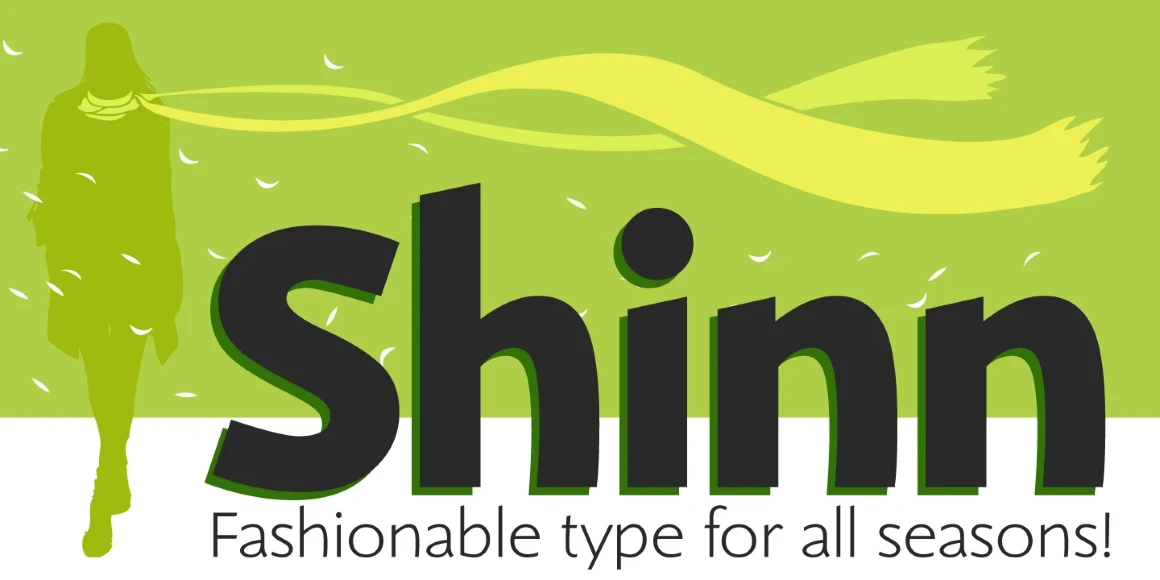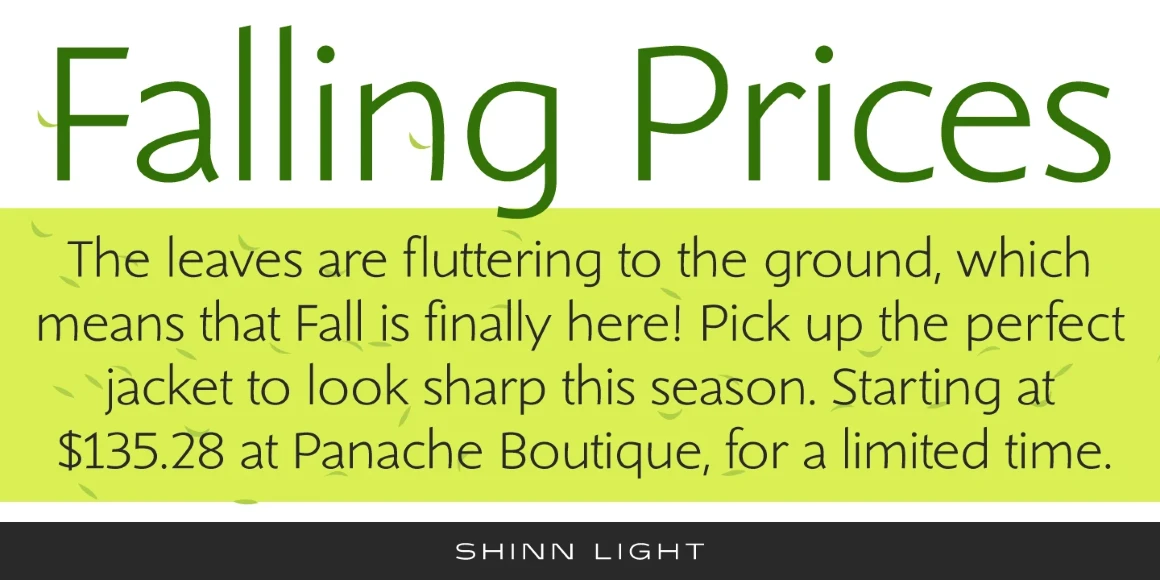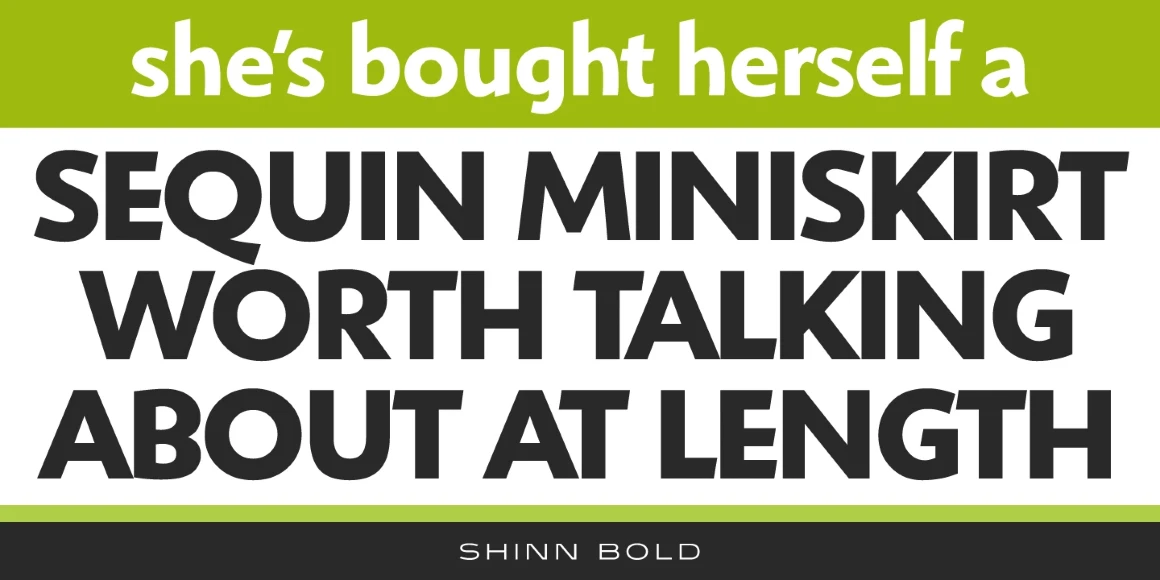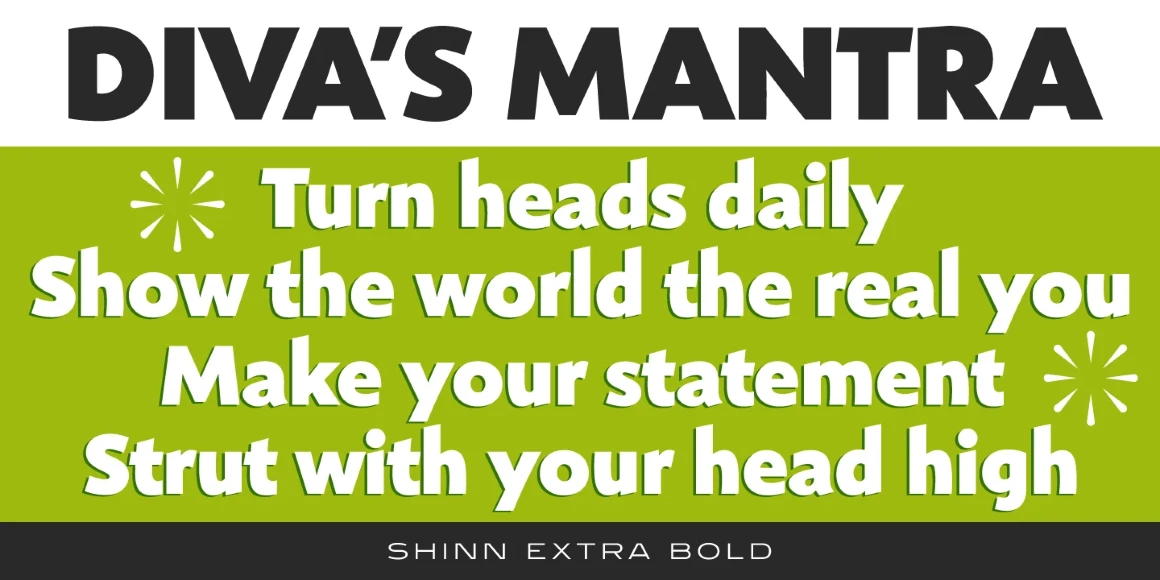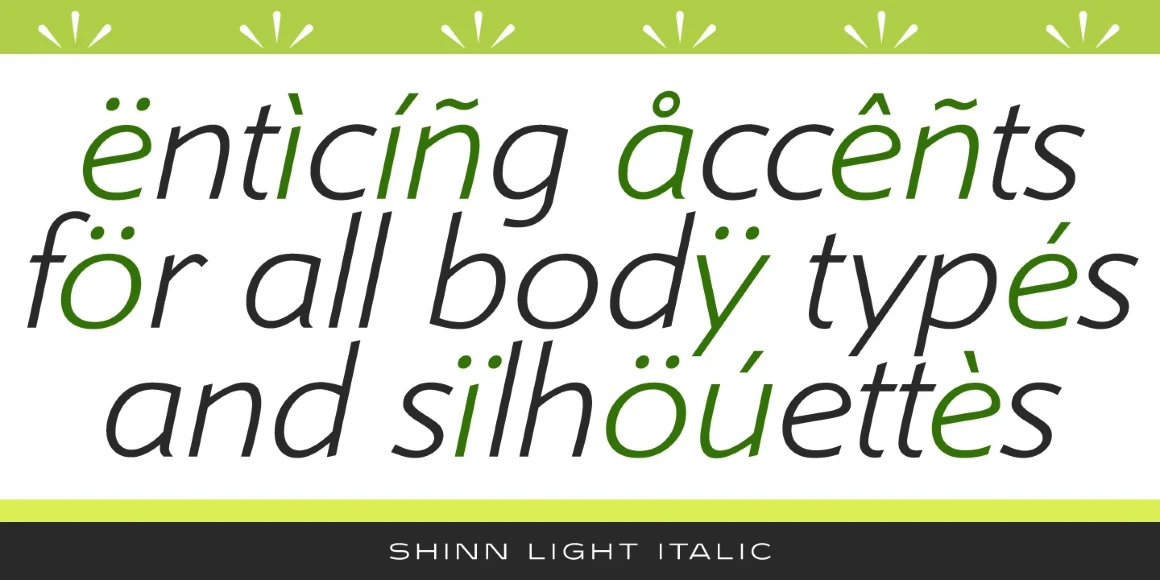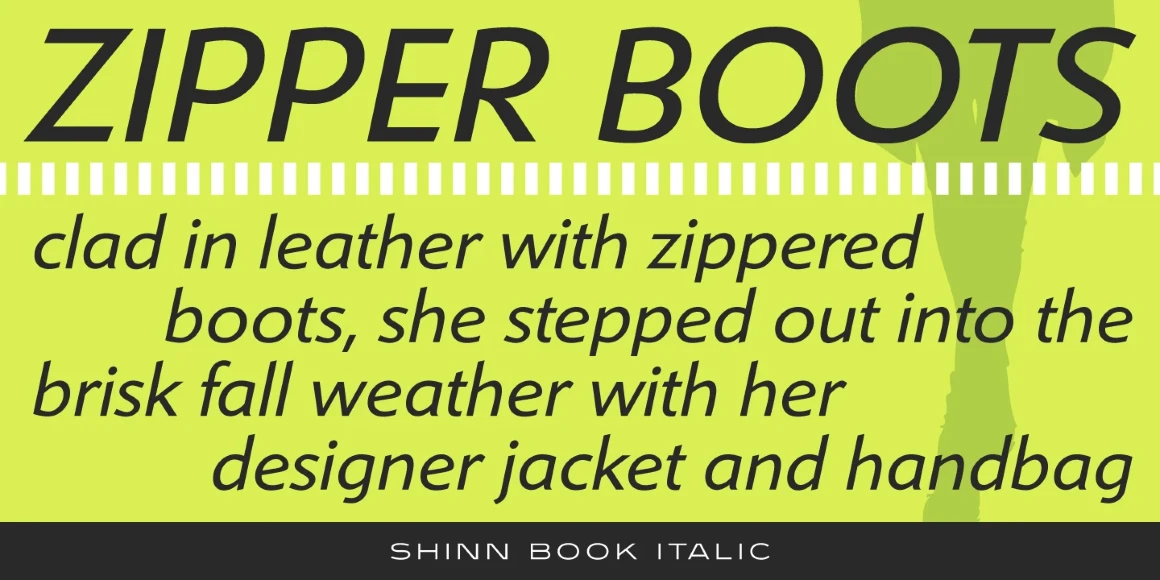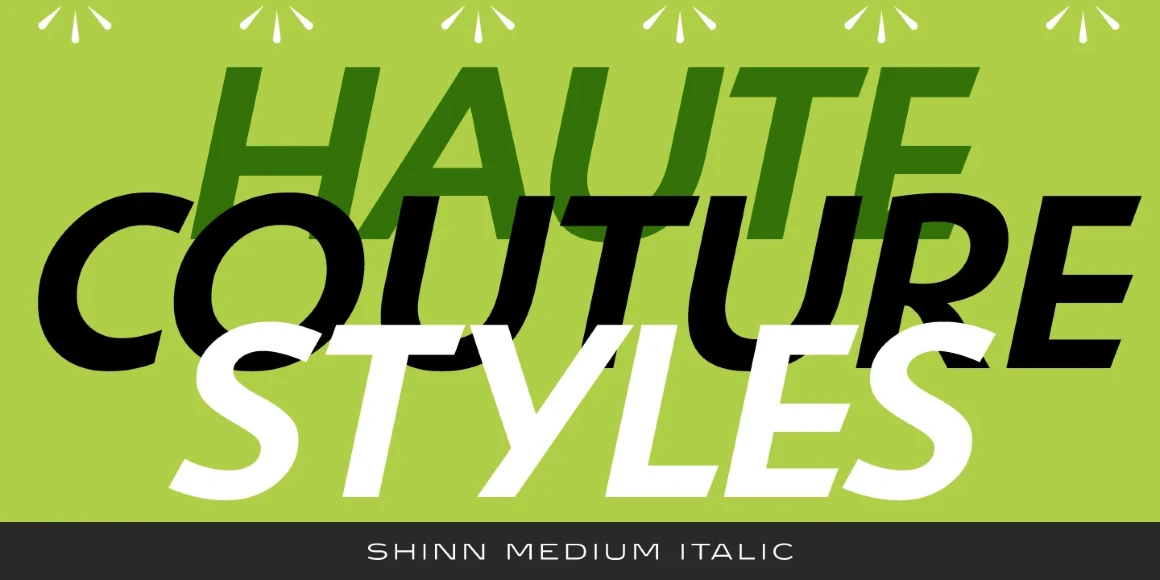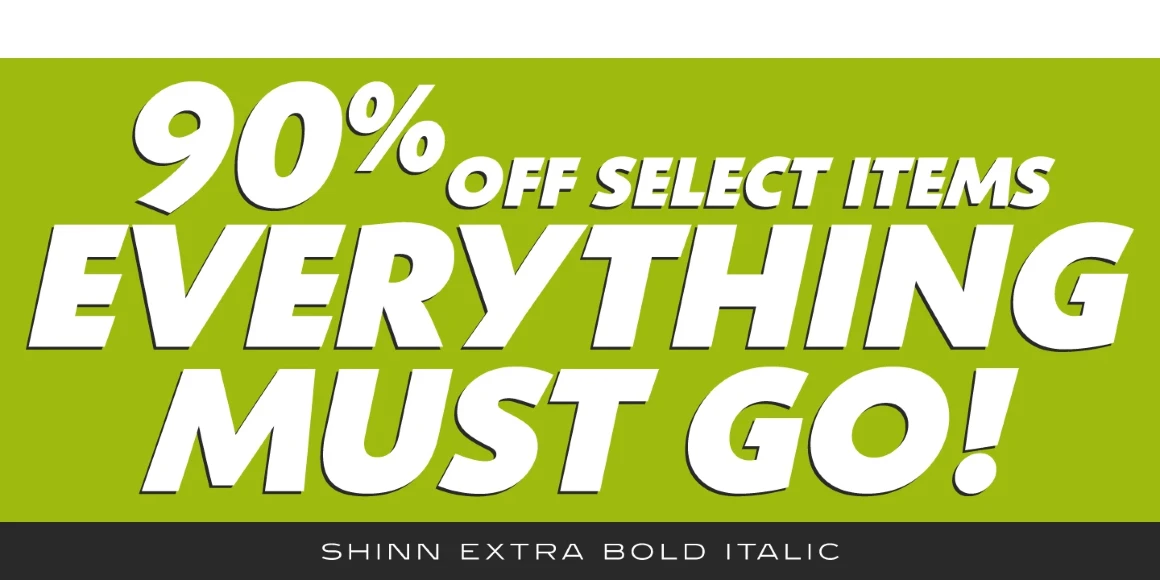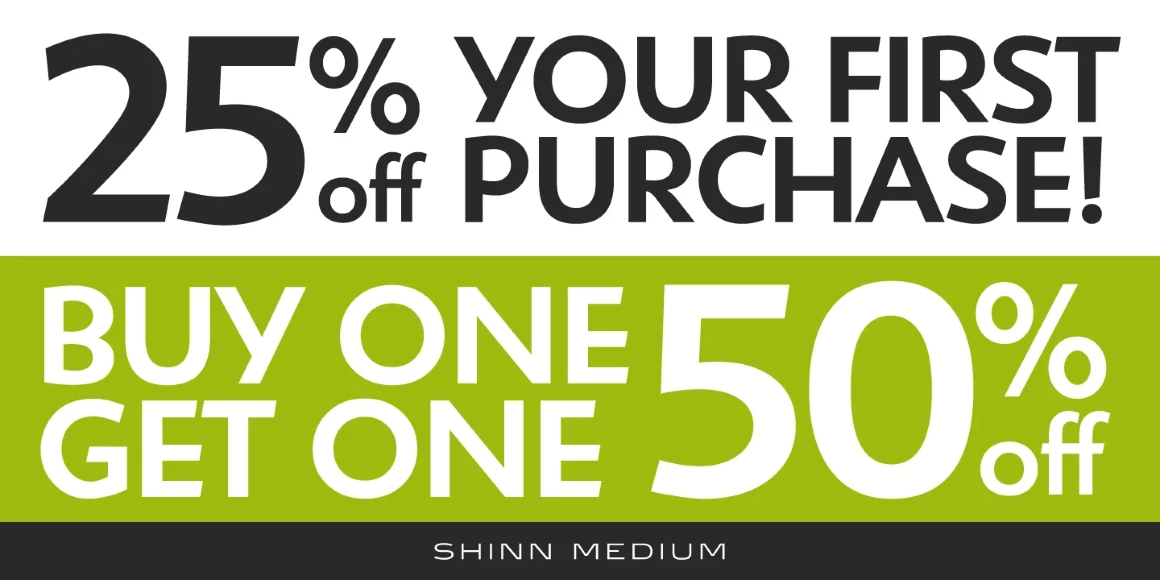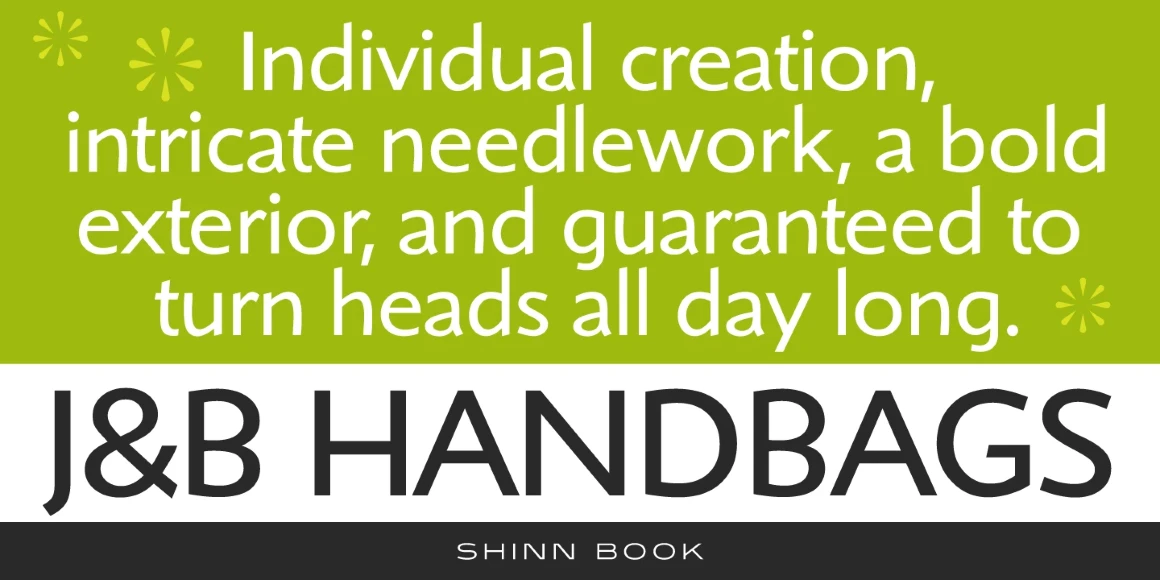
Shinn
Shinn is a humanist sans serif font family with a calligraphic cut and tall ascenders. The Light, Medium, and Extra Bold weights were designed by Nick Shinn for Typsettra in 1985. Steve Jackaman (ITF) redrew and digitized the family in 1992, and added Book, Bold, and italic weights. Shinn has a casual modern feel, emphasized by its angled stems and high legibility.